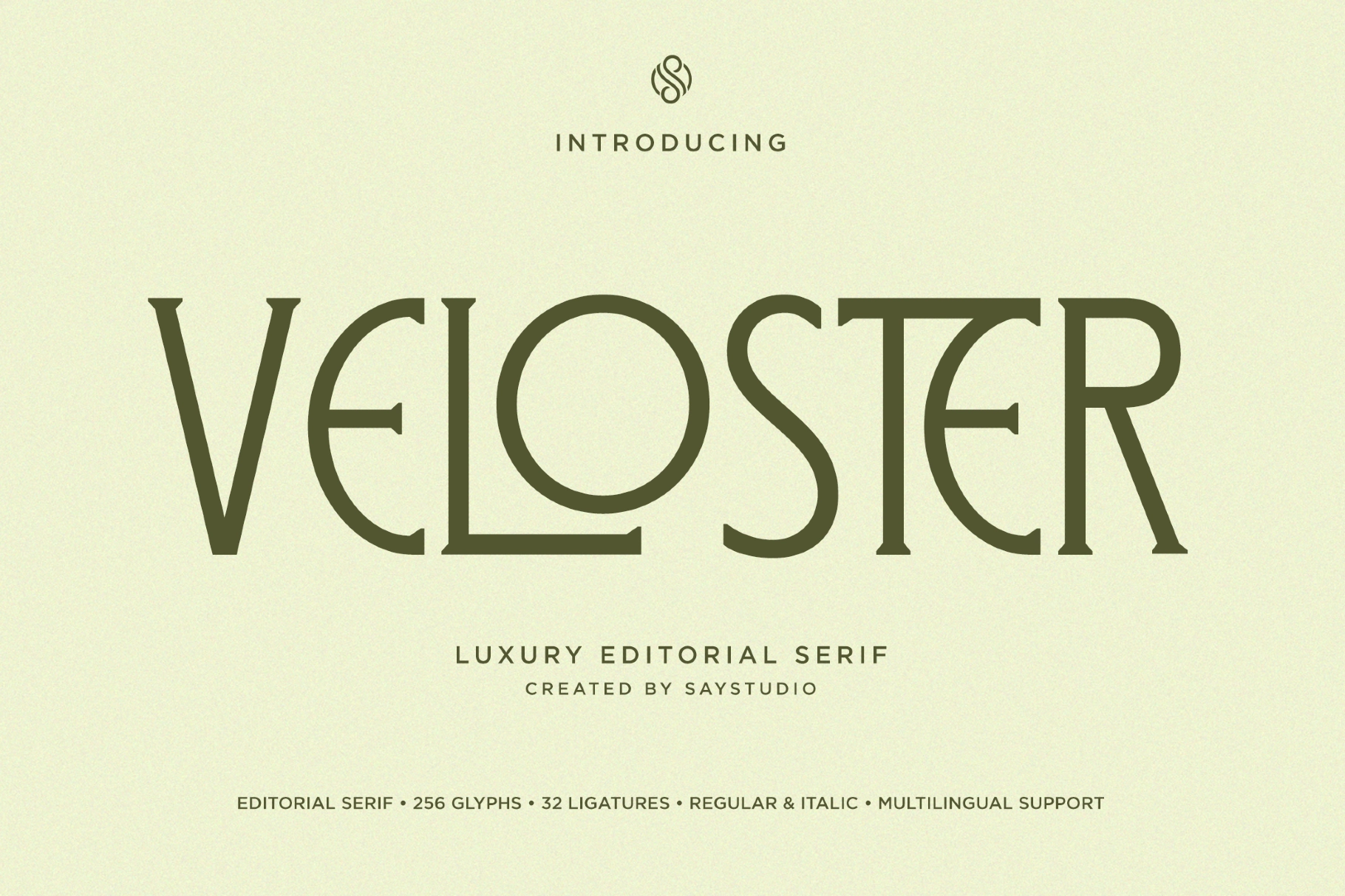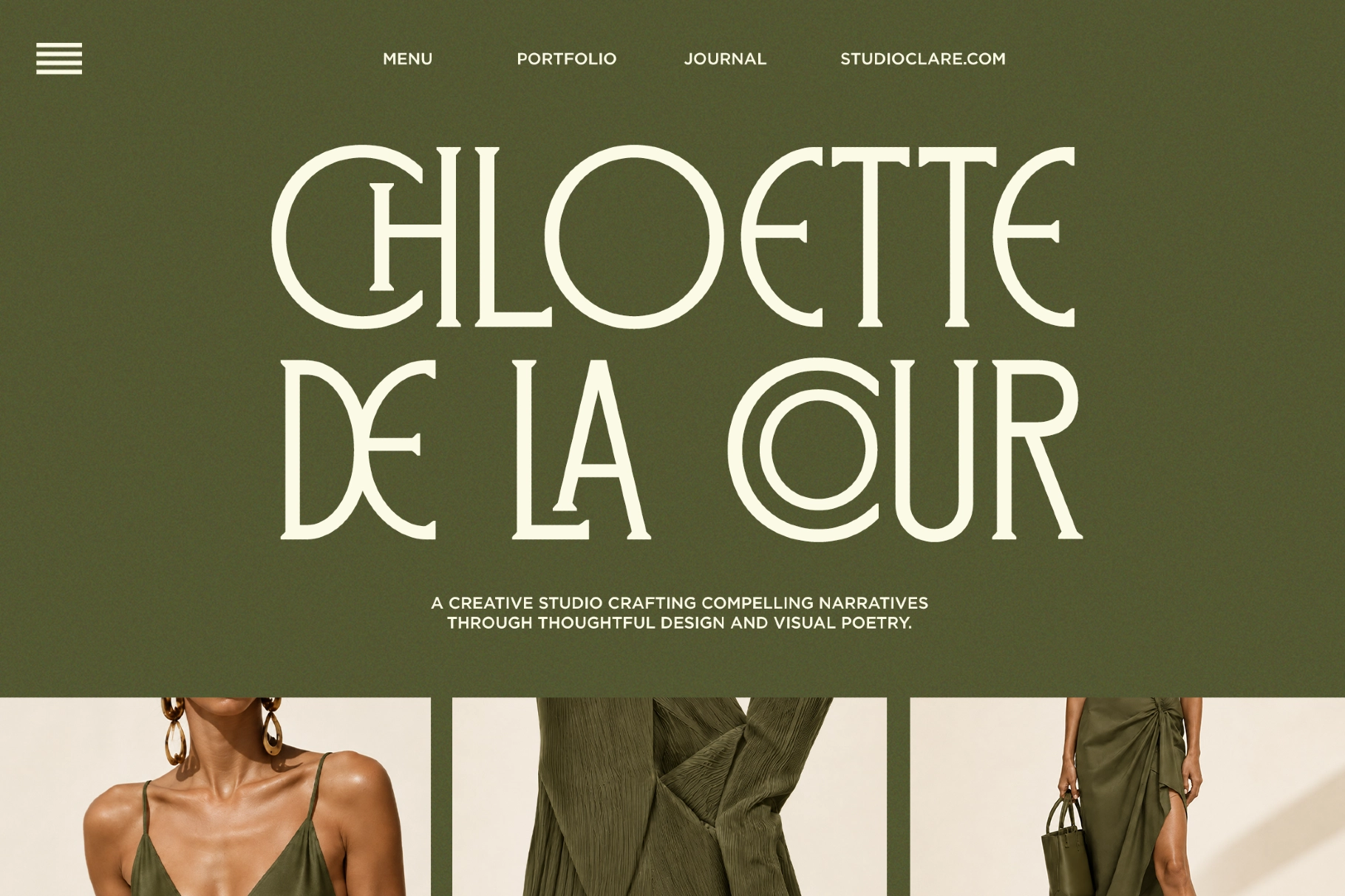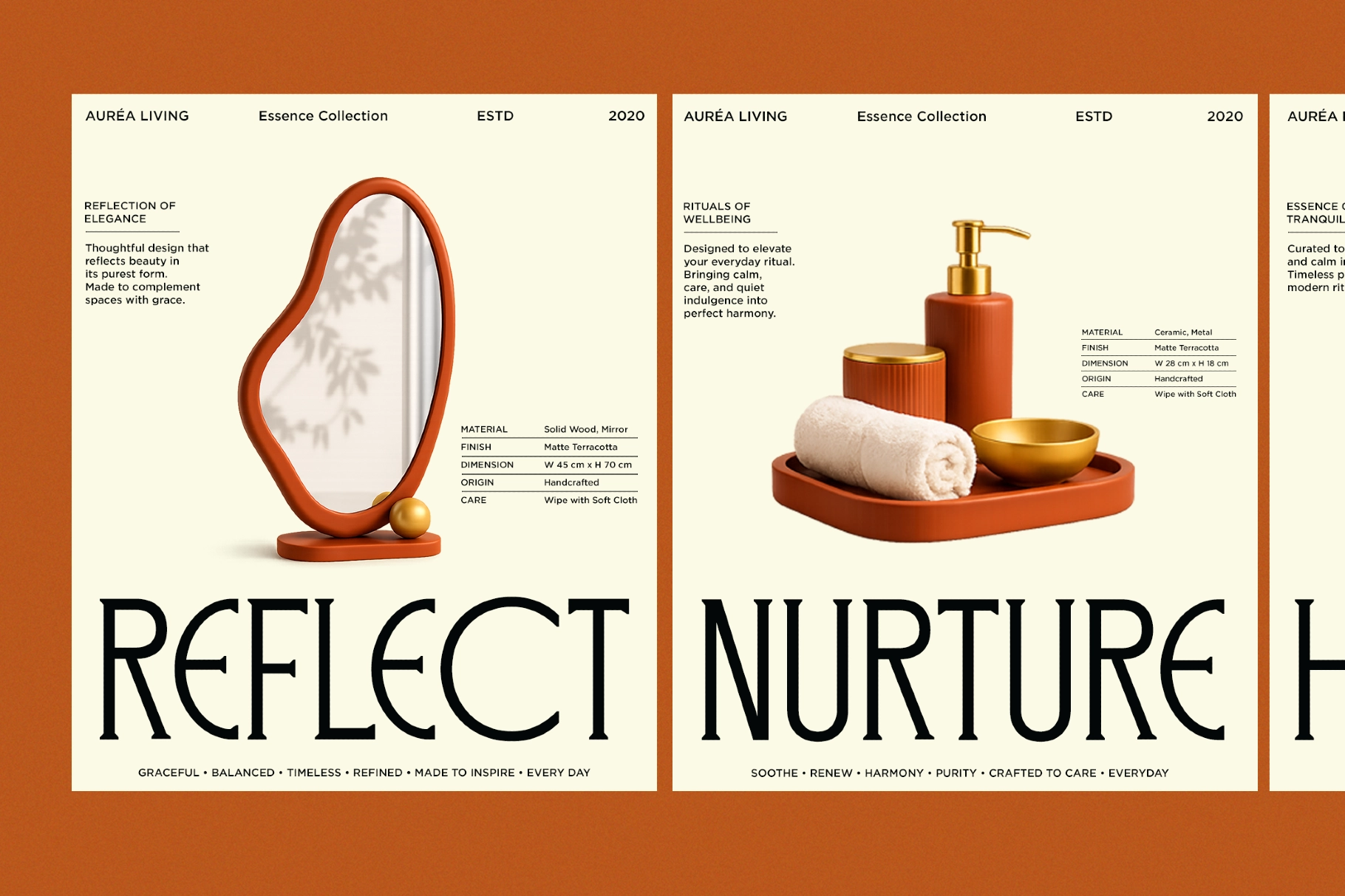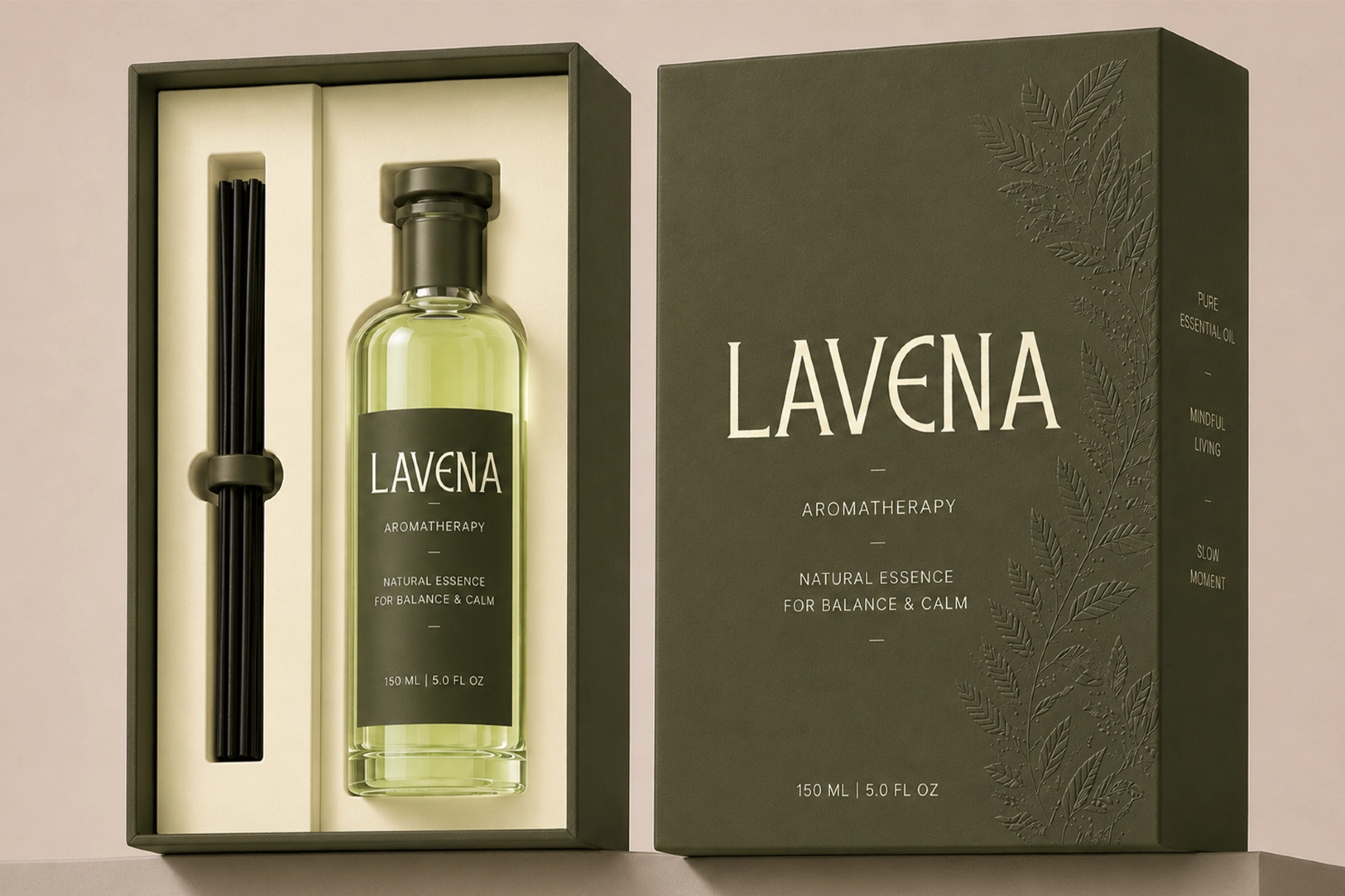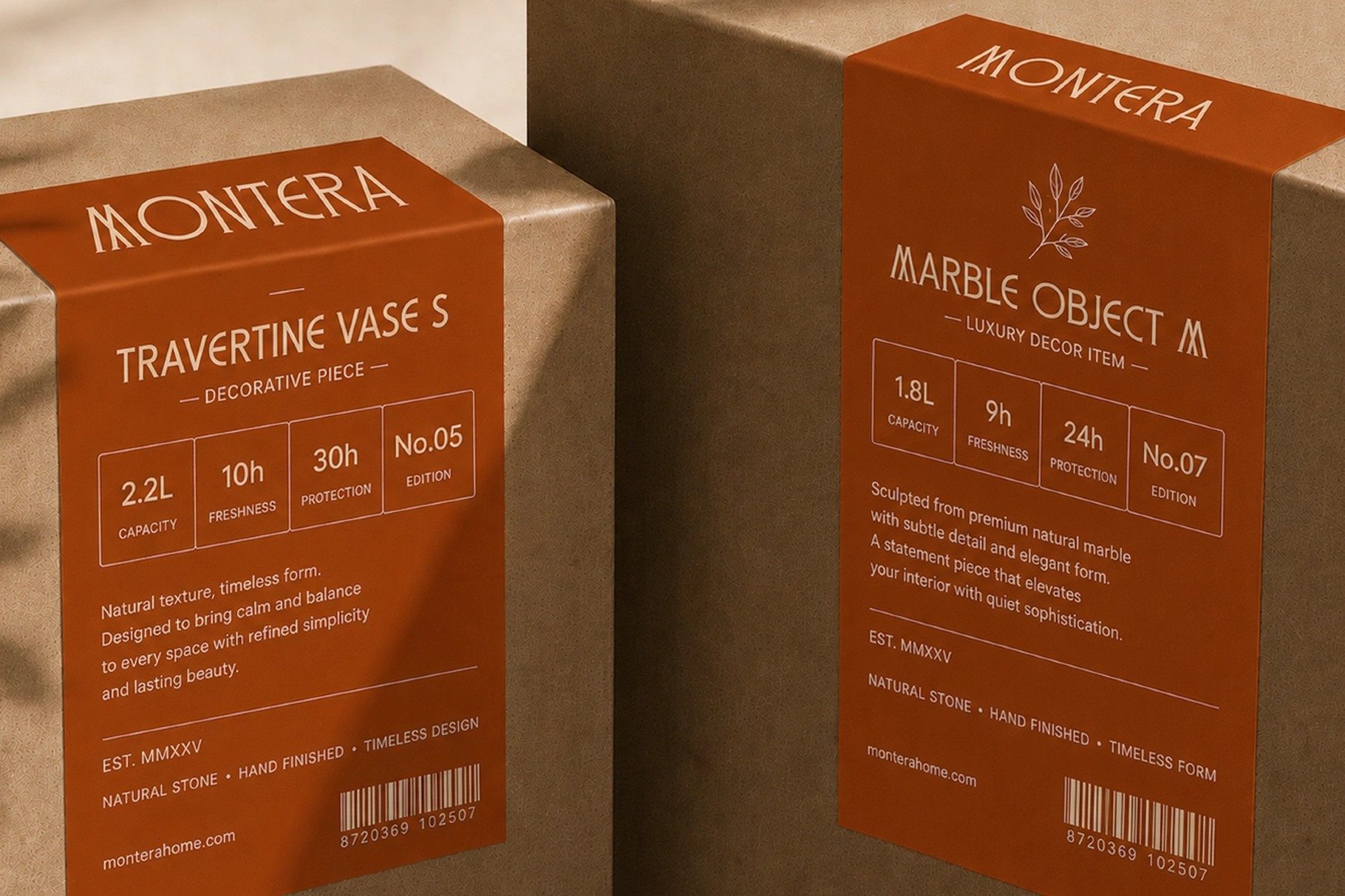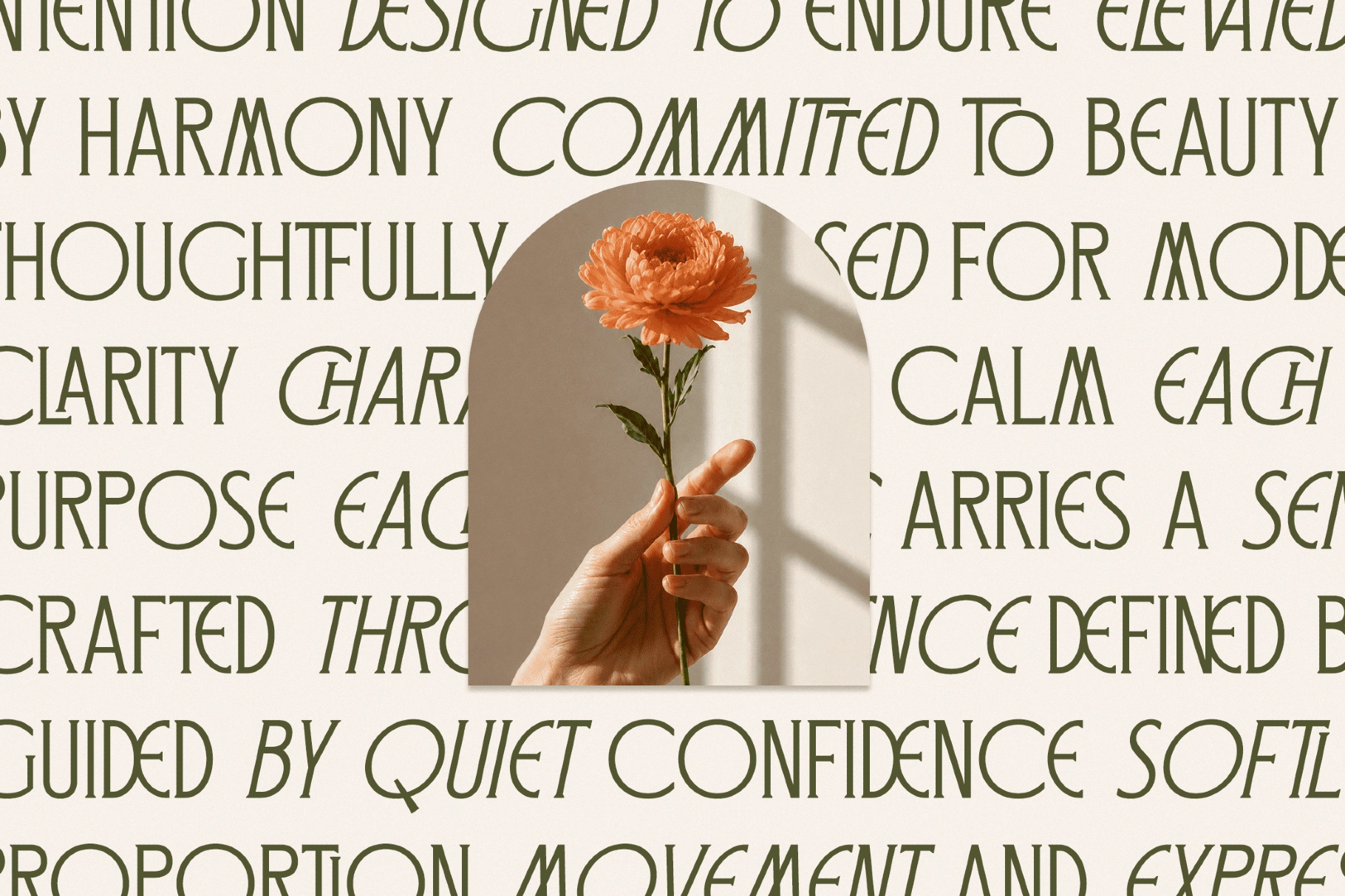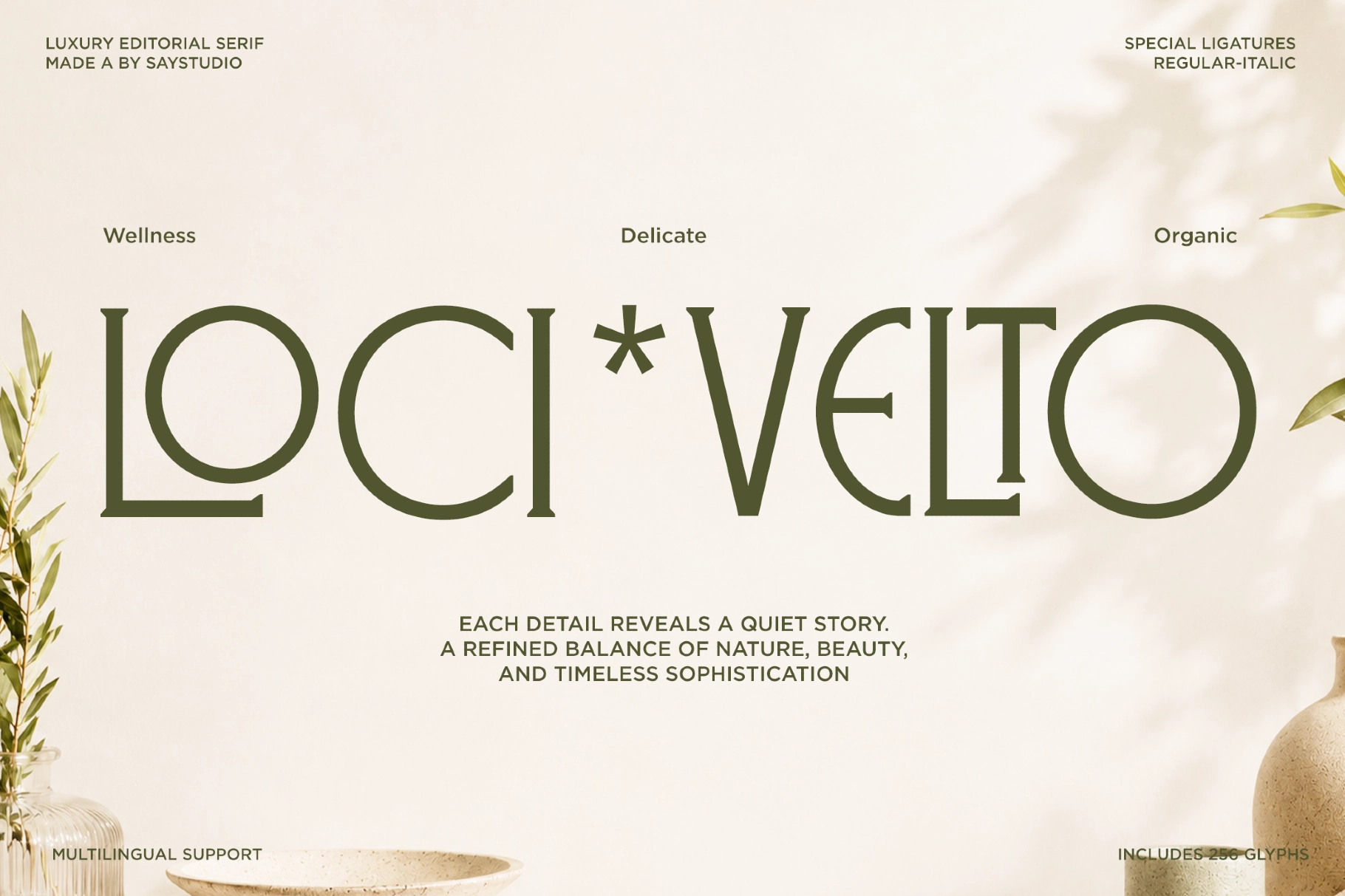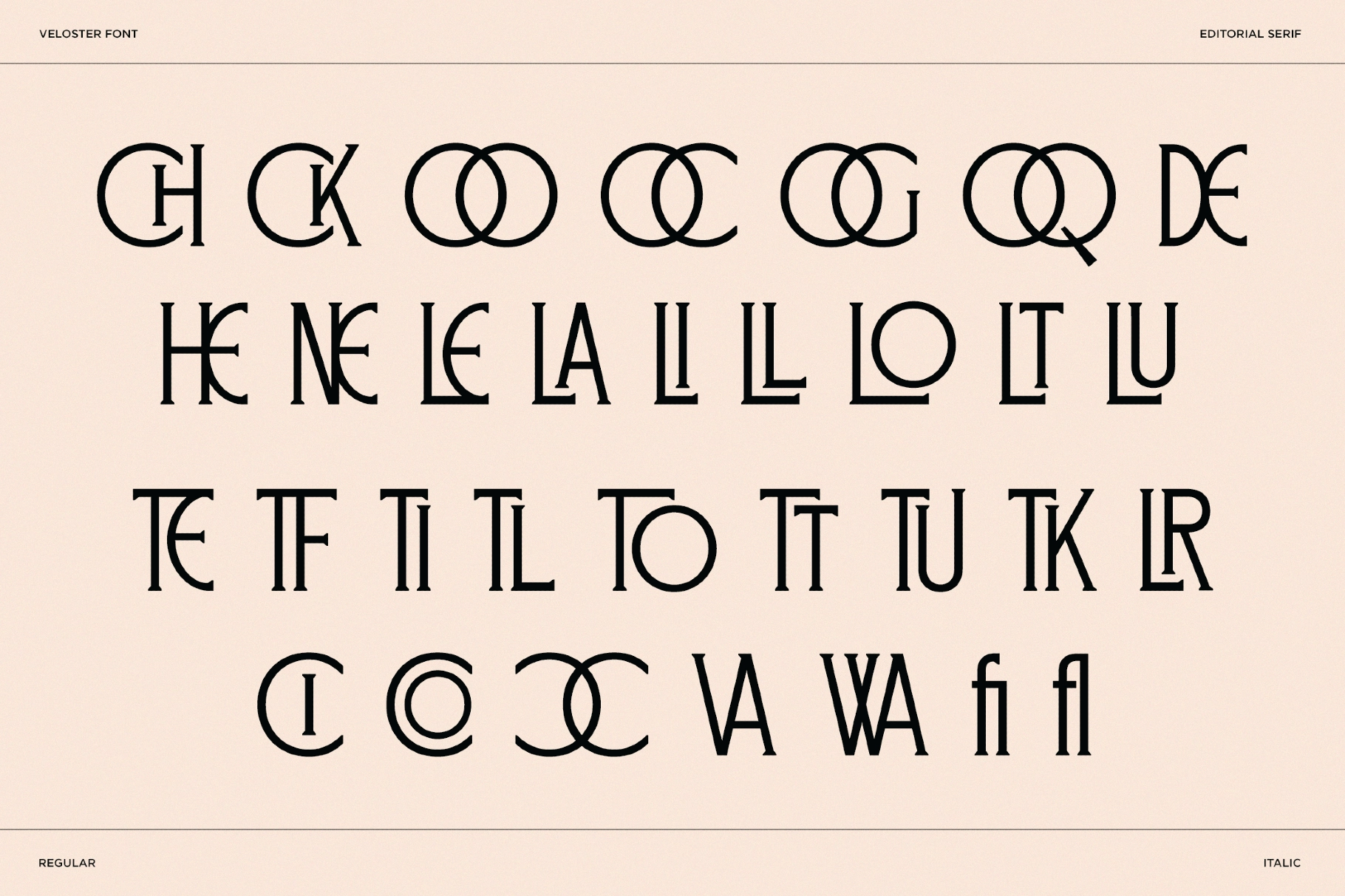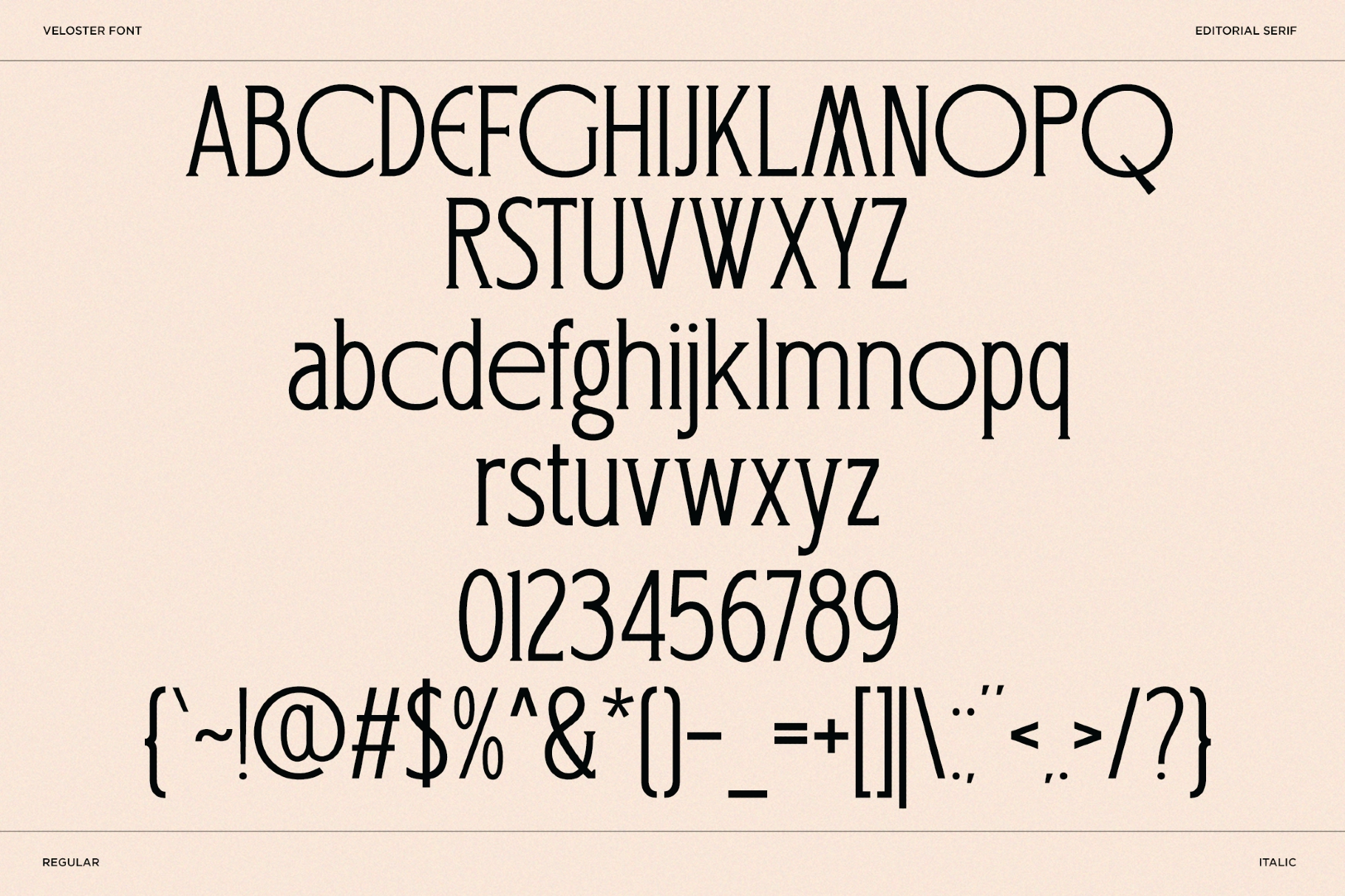
Veloster - Luxury Editorial Serif Font
This luxury serif has graceful proportions, fine contrast, sculptural curves, and expressive ligatures that give headlines a polished editorial character. Its Regular and Italic styles are elegant without excess, with letterforms that suit premium brands, fashion layouts, and quiet high-end visuals.
Veloster works well for luxury logos, fashion campaigns, cosmetic branding, wellness packaging, jewelry labels, hotel identities, wedding stationery, magazine covers, boutique lookbooks, perfume packaging, social media quotes, premium invitations, and editorial spreads. The ligatures and alternates add a distinctive typographic signature, while the full character set keeps the font practical for brand systems and campaign work.
- Regular & Italic styles
- Stylistic ligatures
- Uppercase & lowercase
- Numbers, symbols & punctuation